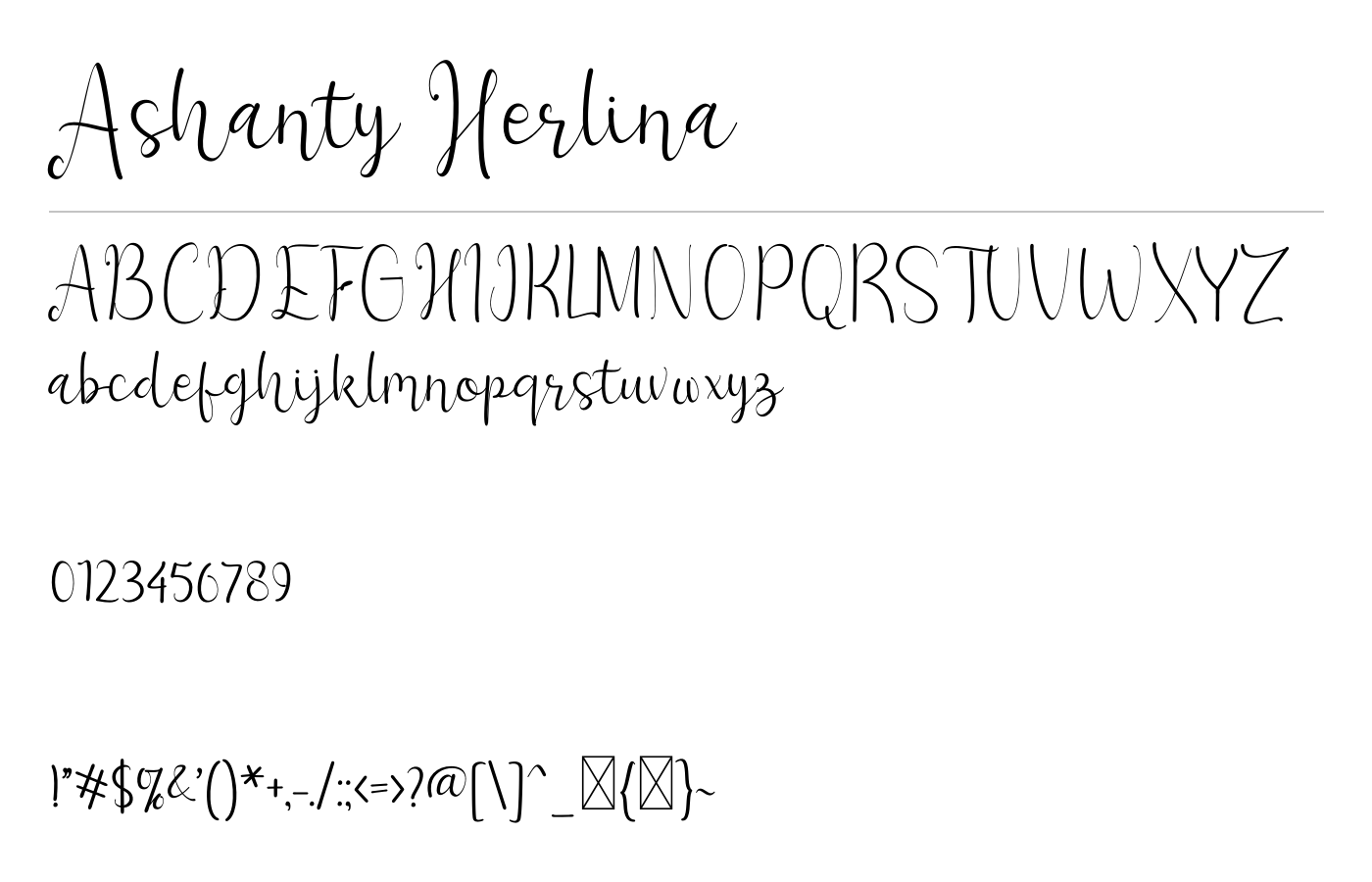
Ashanty Herlina is a delicate, handwritten script font with a light and airy feel, characterized by its narrow strokes and elegant, slightly whimsical letterforms. Its tall, slender characters and fine lines make it ideal for personal, creative projects like invitations, branding, or feminine editorial design where a soft, charming touch is desired. This font’s graceful style brings a unique blend of casual elegance and sophistication, perfect for adding personality without overpowering the message.
Ashanty Herlina Font
About Ashanty Herlina Font